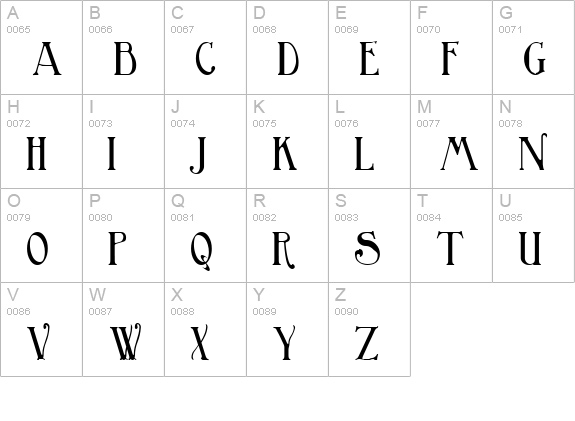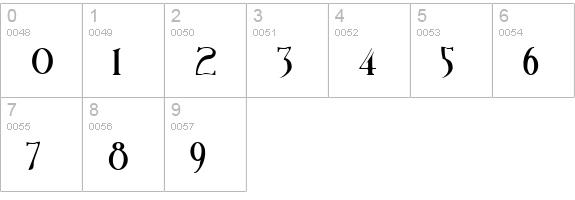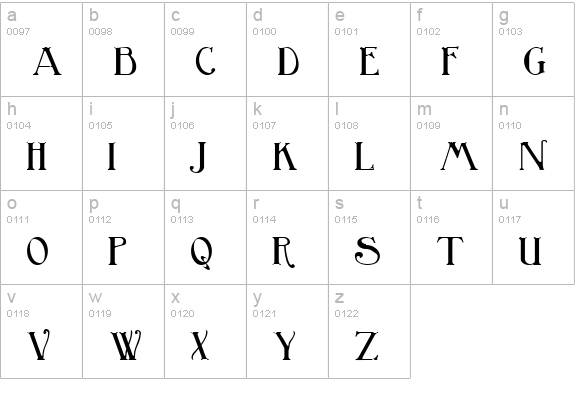
Introducing Birmingham font, a modern and stylish typeface that exudes elegance and sophistication. This versatile font is perfect for a wide range of design projects, from branding to packaging to social media graphics. With its clean lines and unique character shapes, Birmingham font adds a touch of class to any design. What's even better is that Birmingham font is available for free download at FontsMarket.com. Yes, you read that right - this beautiful font can be yours at no cost! Don't miss out on the opportunity to enhance your designs with the timeless appeal of Birmingham font. Download it today and elevate your creative projects to new heights.